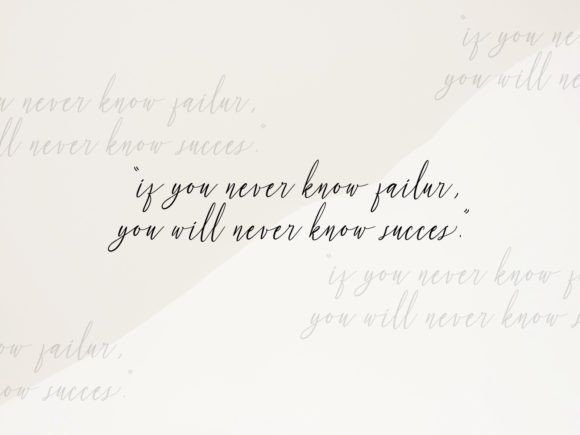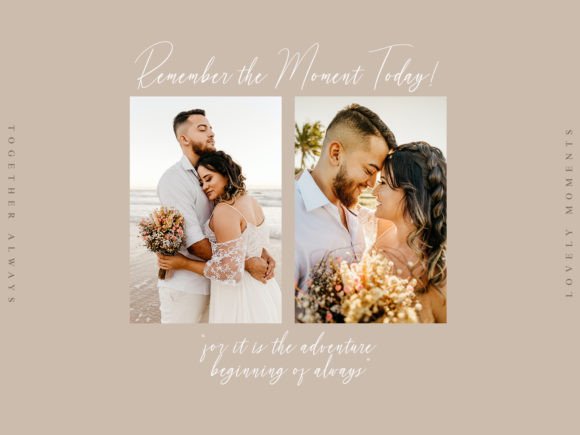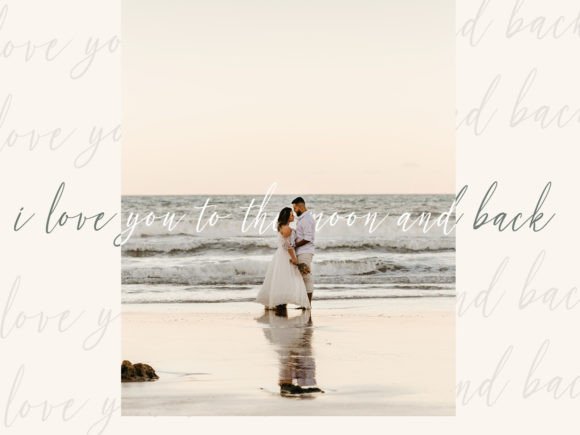
Arletta White Font: Elegant Calligraphy Script for Wedding Invitations
About the Arletta White Font
The wait is over! The incredible Arletta White Font is now available for your design toolkit. Arletta White is a modern calligraphy script perfect for wedding invitations, calligraphy logos for branding, elegant websites, gifts, social media posts or simply to use to express words over a background and anything else your heart desires!
Arletta White’s elegant, yet modern calligraphy style shines in headlines, logos, and short-form text like social media posts and invitations. Its delicate swashes are best showcased in applications where readability isn’t paramount; avoid using it for body copy or long paragraphs. The font’s inherent sophistication makes it ideal for brands focused on luxury, beauty, or the arts.
For effective pairings, consider a clean sans-serif like Lato or Open Sans for body text to provide contrast and enhance readability. Alternatively, a classic serif such as Garamond or Merriweather can add a touch of timeless sophistication, while a geometric sans-serif like Montserrat could create a more modern and balanced aesthetic.
Arletta White projects a refined and romantic personality, best suited for projects requiring a touch of upscale flair. Avoid pairing it with overly playful or casual fonts, as this might dilute its inherent elegance.